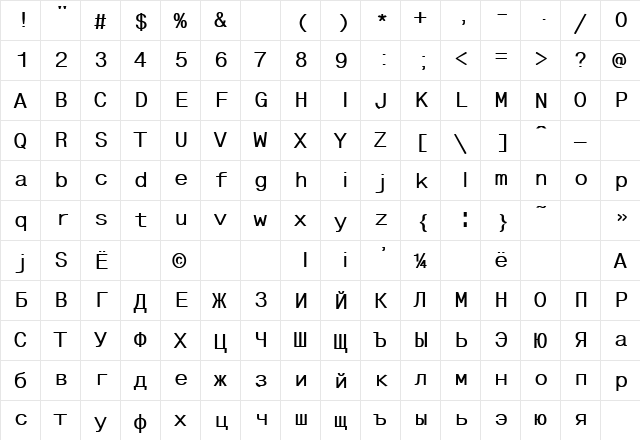
FixHelvDL Bold
Design Context for FixHelvDL Typeface
FixHelvDL takes a measured approach to typography — its balanced proportions and neutral character make it a reliable workhorse for both digital and print work. Its bold stroke weight gives it real presence on the page.